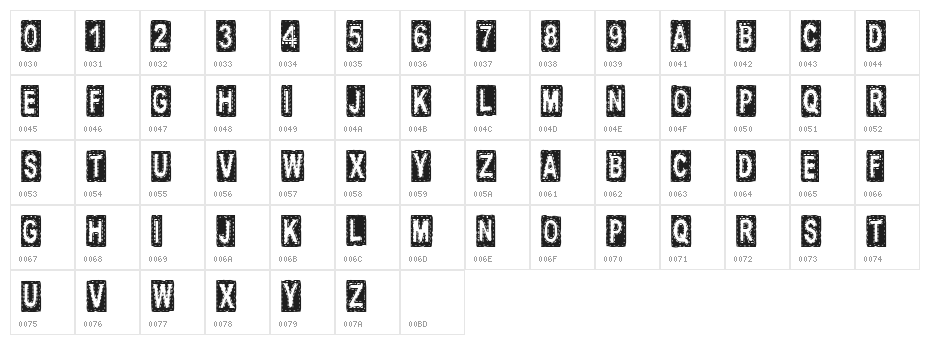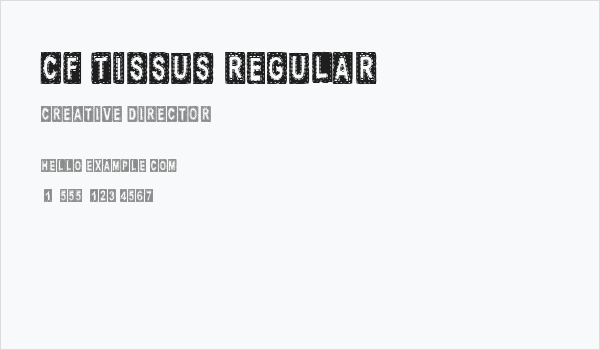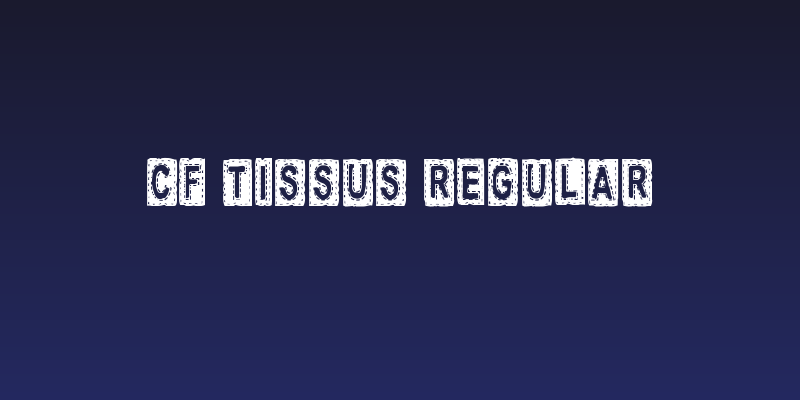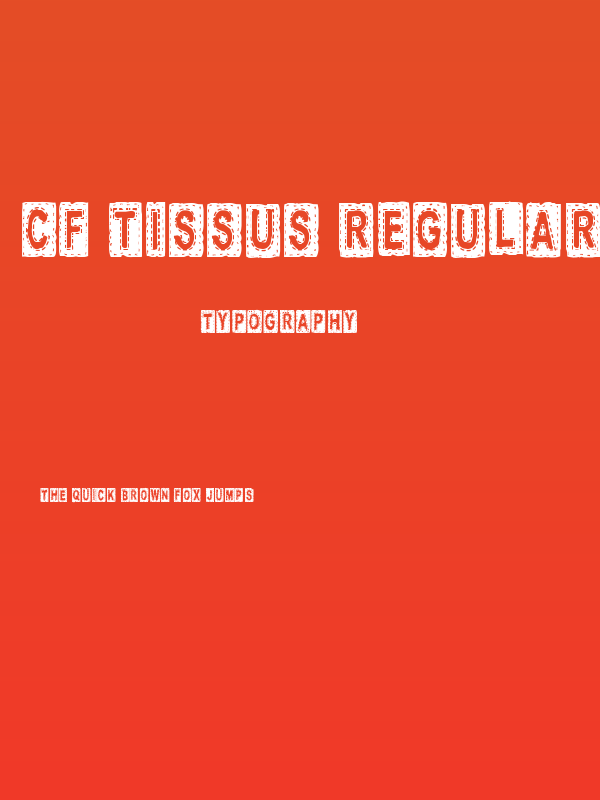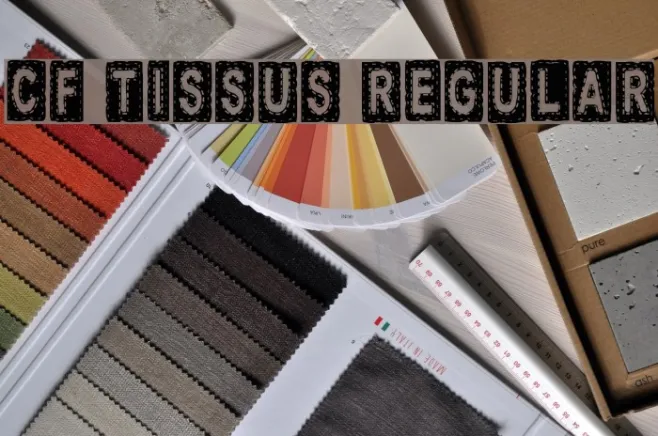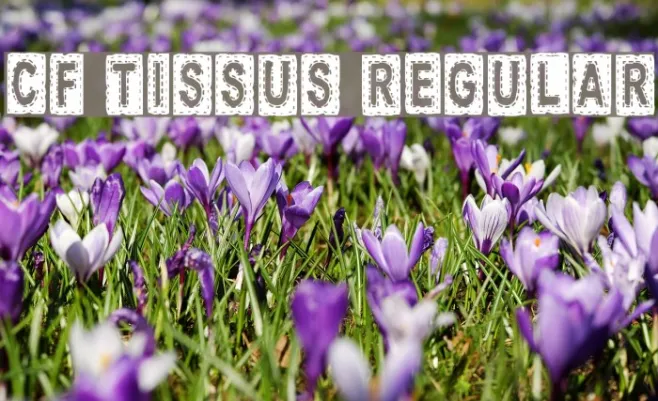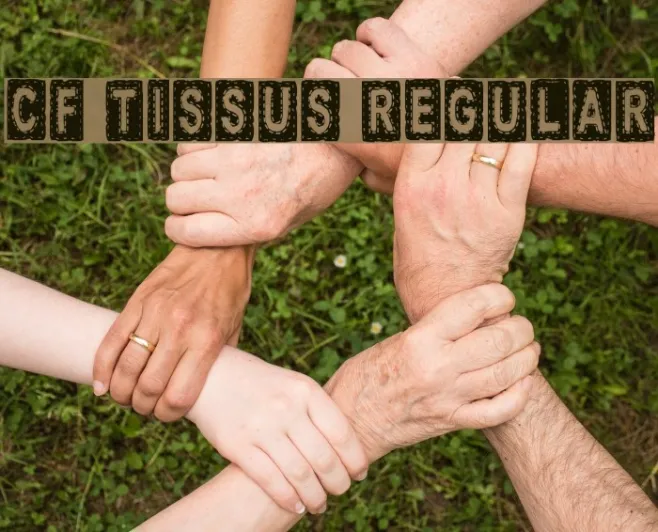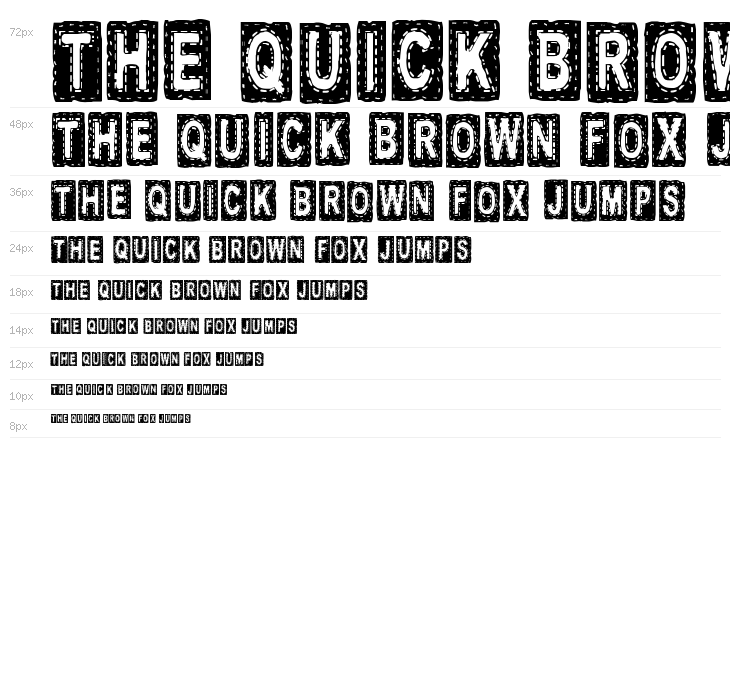
CF Tissus Regular Font
CF Tissus Regular Description
This font features a bold, decorative style with a unique stitched pattern surrounding each character. The letters are enclosed in a rectangular shape, giving them a patchwork appearance. The design is playful and eye-catching, making it suitable for creative and informal projects. The characters are evenly spaced, and the bold outlines enhance readability while maintaining a whimsical aesthetic. The font's distinct style is reminiscent of fabric textures, adding a tactile dimension to the visual experience.
| Proposed Projects | Ideal for craft projects, children's books, playful branding, and DIY-themed designs. |